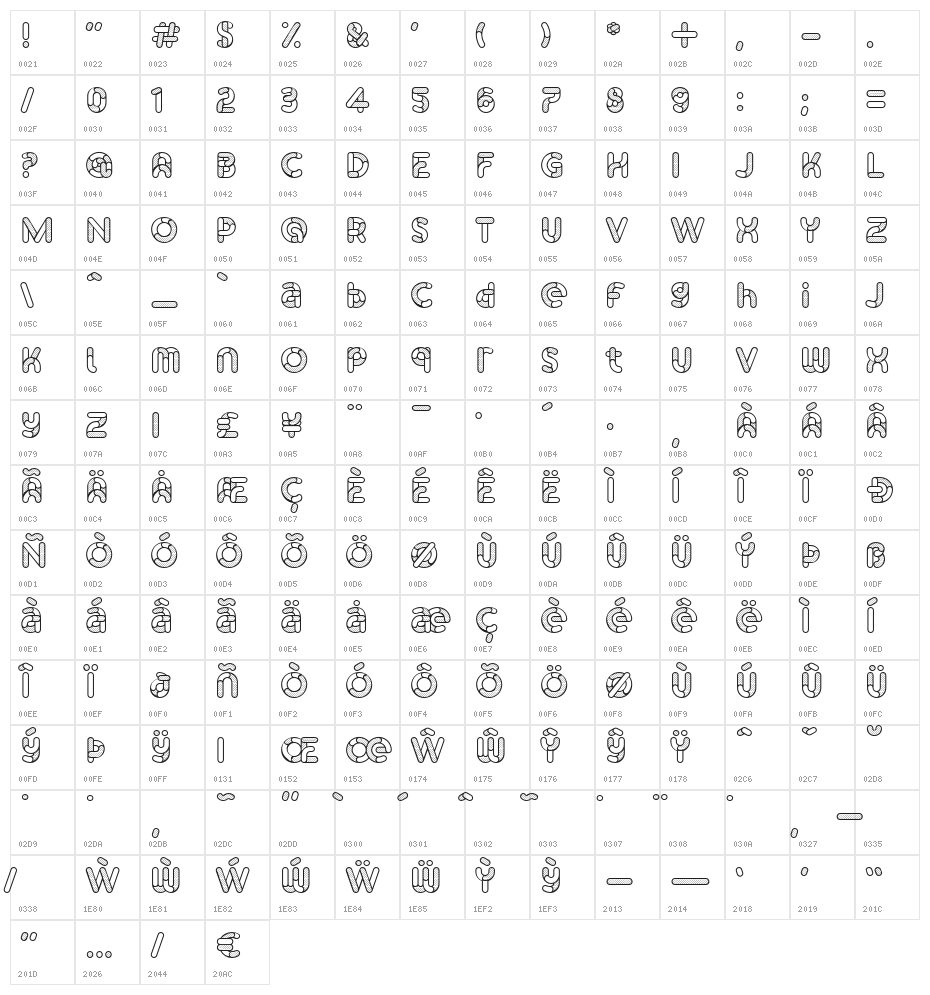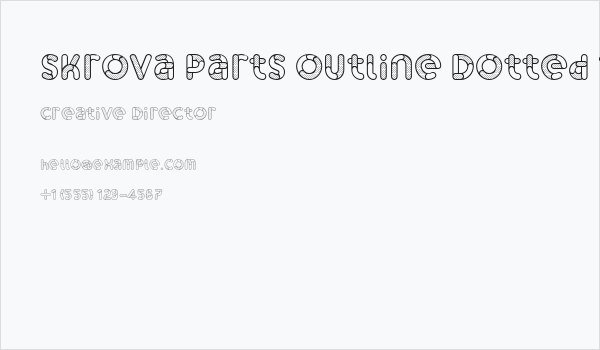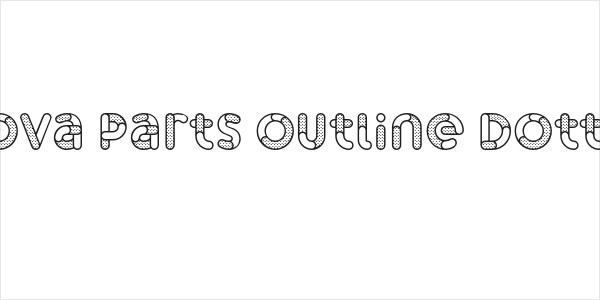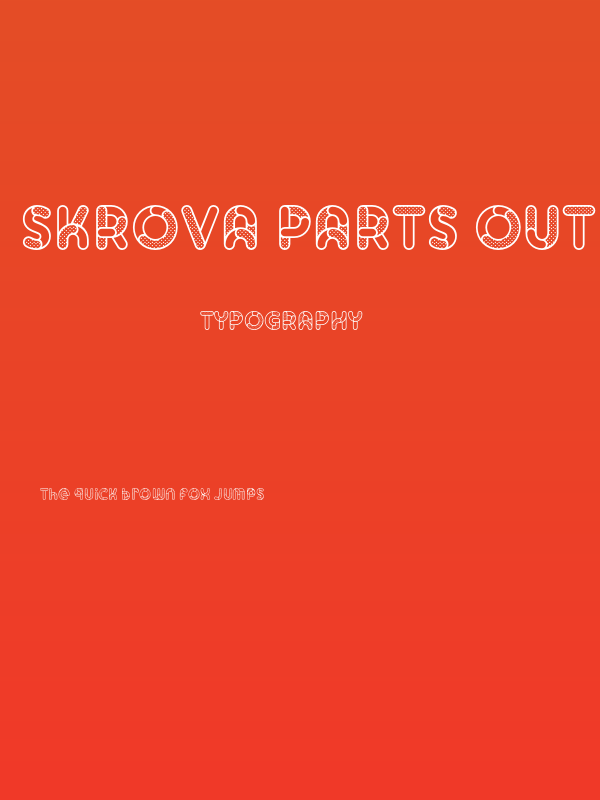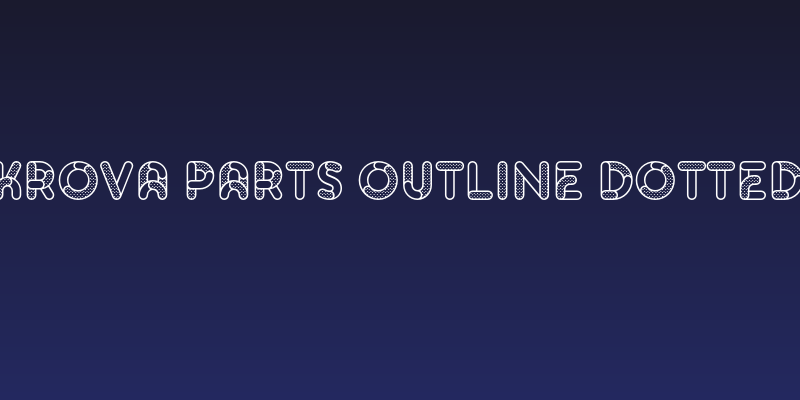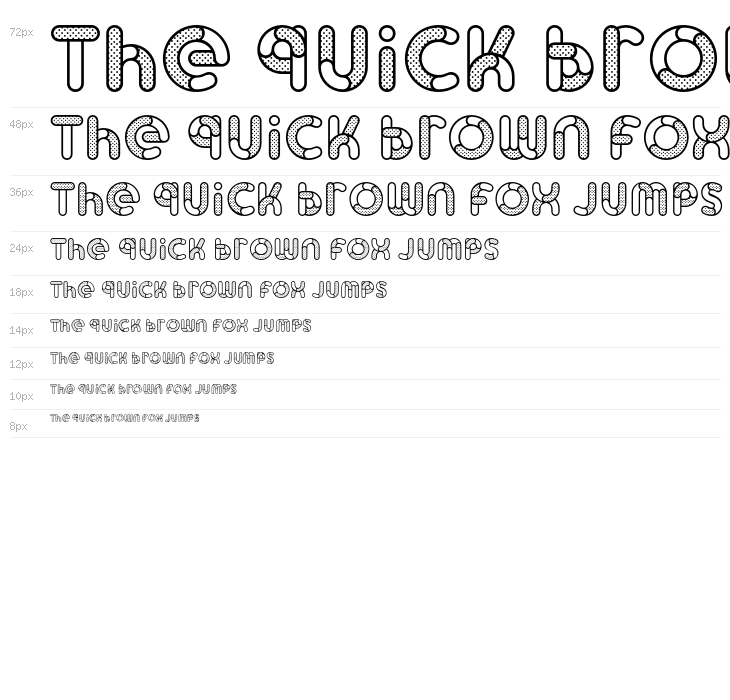
Skrova Parts Outline Dotted 1 Font
Skrova Parts Outline Dotted 1 Description
This font features a unique and playful design with an outline style filled with a dotted pattern. The characters are bold and rounded, giving them a friendly and approachable appearance. The dotted fill adds a layer of texture and visual interest, making it stand out in any design. The uppercase and lowercase letters maintain a consistent style, while the numerals and special characters complement the overall look. This font is ideal for projects that require a fun and engaging aesthetic, such as children's books, playful branding, or creative posters.
| Overall Style | Playful, Modern |
| Proposed Projects | Ideal for children's books, playful branding, creative posters, and event invitations. |